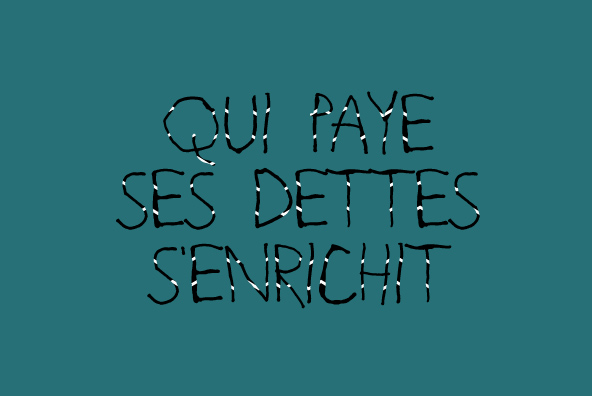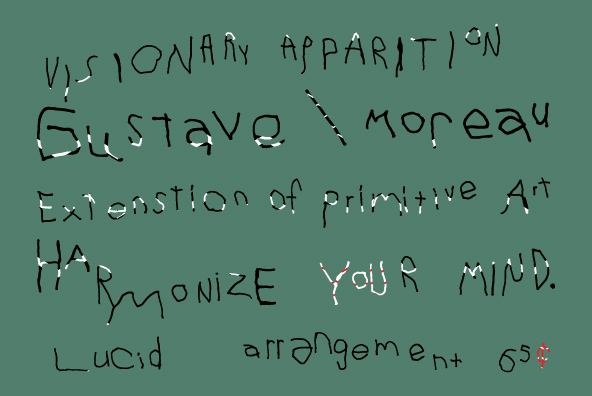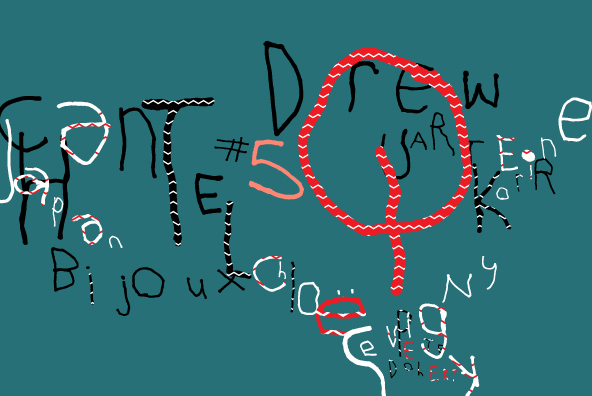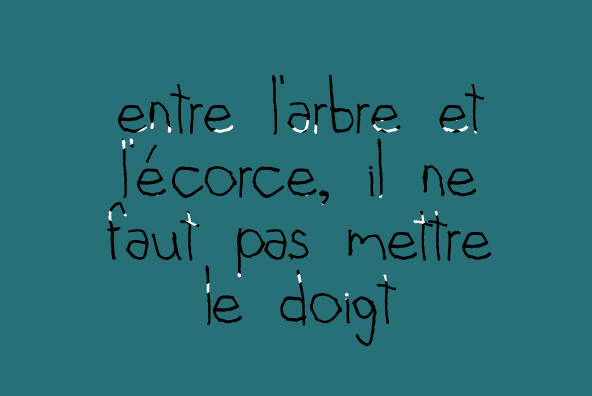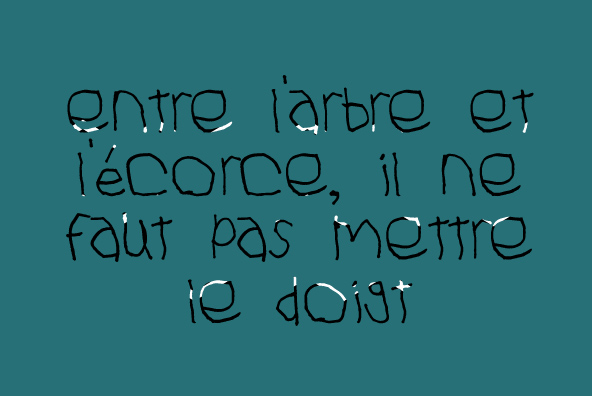
YWFT Garnier
Someone call Nurse Ratched! Putting the rock in electroshock, YWFT Garnier brings a loose, juvenile style to the walls of the asylum. This was formerly a handset, and now we are proud to bring it out of the sanitarium in glorious Opentype format which includes a few dozen stylistic alternates, and a free handset that contains hundreds of letter designs in EPS vector format. It may appear sloppy at first, but look closely: there is a typographic code at work here. Fonts of this nature can often come off as childish or amateurish, but this is a primitive masterpiece of endless options. Get YWFT Garnier to really pop your ransom note, event flyer, or just create playful, modern designs of any and all types. Designed by YouWorkForThem.